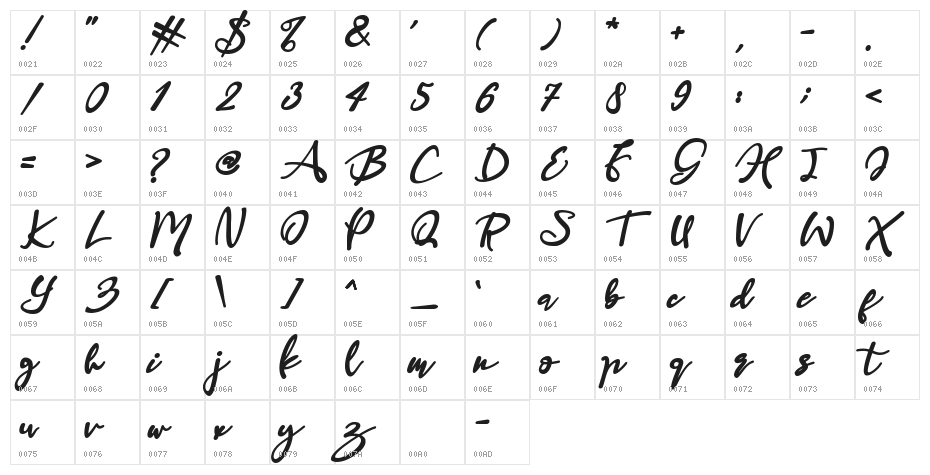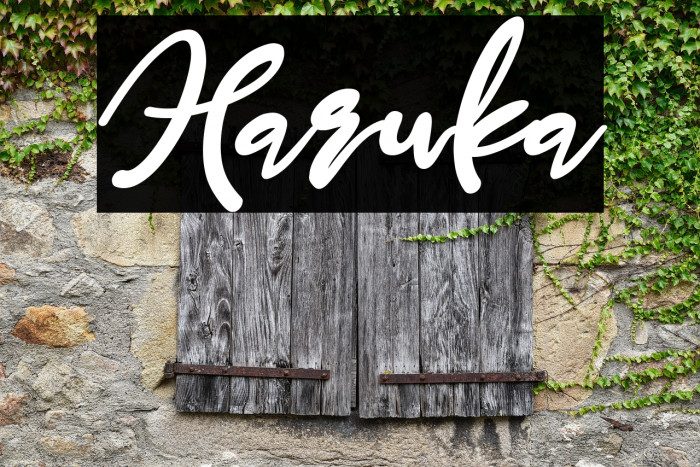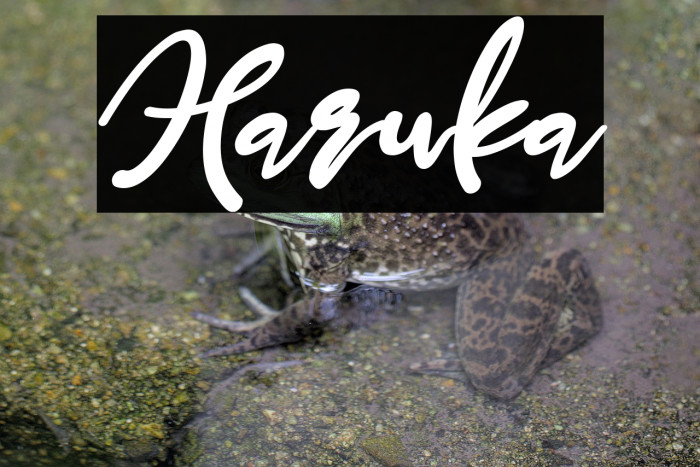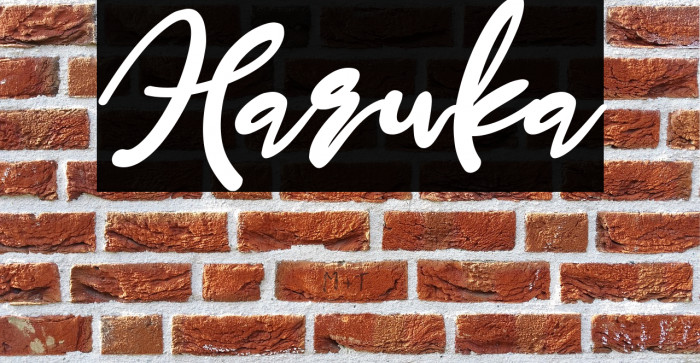
Haruka Font
Haruka Description
This font features a dynamic and fluid script style, characterized by its bold and expressive strokes. The letters are interconnected, creating a seamless flow that mimics natural handwriting. The uppercase letters are slightly more structured, while the lowercase letters exhibit a playful and casual flair. The numerals and special characters maintain the same energetic style, making them cohesive with the alphabet. This font's boldness and unique character make it suitable for creative and artistic projects.
| Proposed Projects | Ideal for branding, invitations, greeting cards, and artistic posters. |